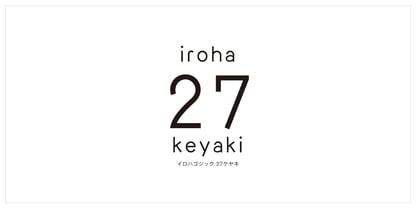
iroha 27keyaki StdN R
by Kinuta Font Factory
The iroha 27keyaki StdN R Font Family was designed by and published by Kinuta Font Factory. iroha 27keyaki StdN R contains 1 styles. More about this family
iroha 27keyaki' is a slightly flattened kana with the feel of a brush script. The kanji for iroha is common. The design is simple, with an awareness of straight lines. There are 12 kana in total.